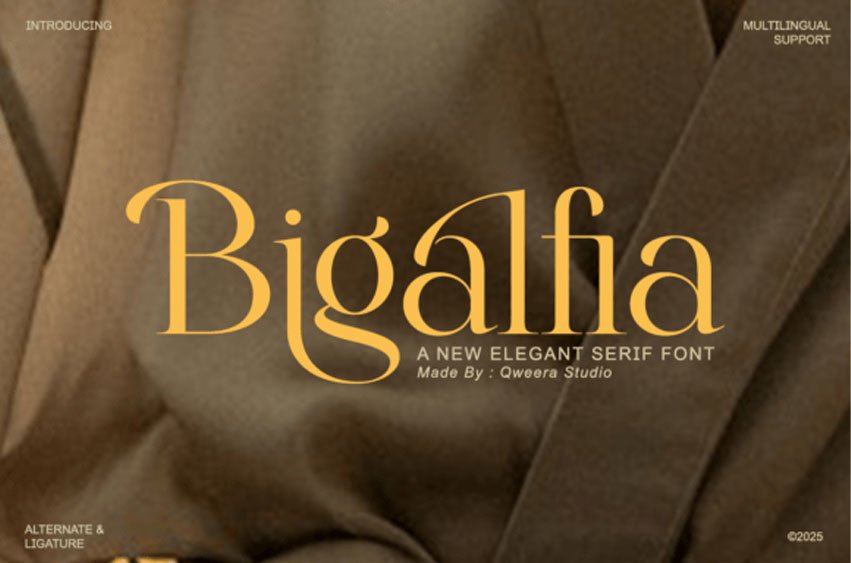
Bigalfia Font
Bigalfia Font Elevate your editorial designs to new heights of sophistication with Bigalfia, a new, elegant serif font that harmonizes classic proportions with contemporary flair.
The Bigalfia typeface is a masterclass in balance, featuring high-contrast strokes and unique, curvaceous terminals that breathe life into every word.
What sets the Bigalfia font apart is its extensive collection of stylish alternates, particularly the elongated “g” and “f” descenders that create a rhythmic, interlocking visual effect in headlines. This Bigalfia serif is tailor-made for high-fashion magazines, luxury packaging, and sophisticated web layouts where typography is the primary focal point.
Its refined aesthetic communicates trust and timelessness, making it an ideal candidate for heritage branding or upscale editorial work.By utilizing the built-in ligatures, you can transform simple text into a bespoke piece of art that feels curated and high-end.
Use Cases
Logos, branding, beauty packaging, skincare labels, editorial headlines, magazine covers, wedding cards, luxury websites.